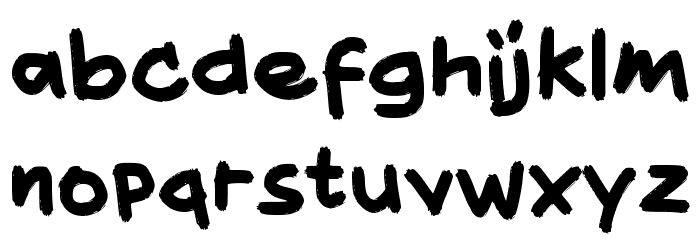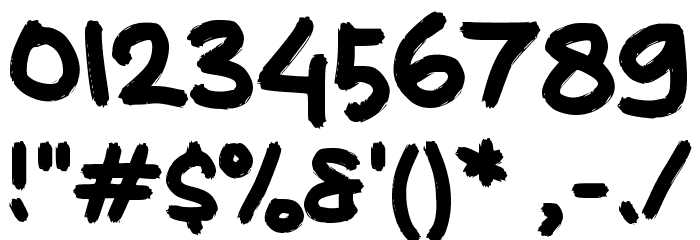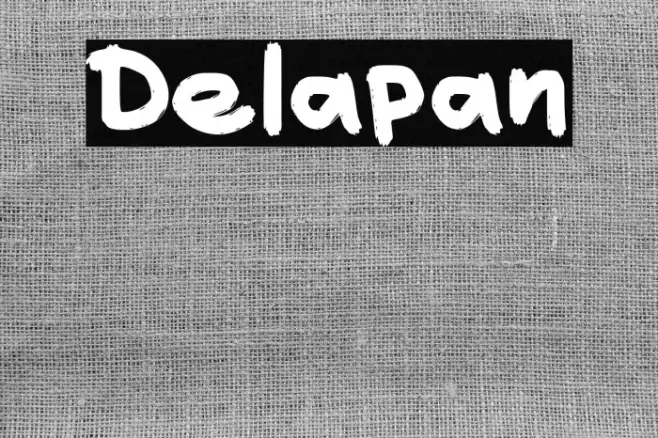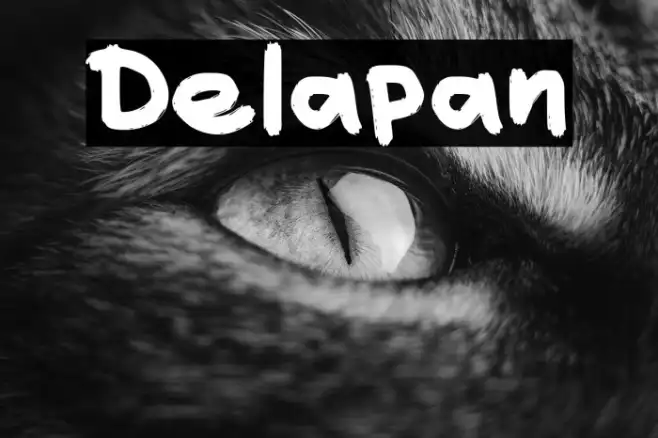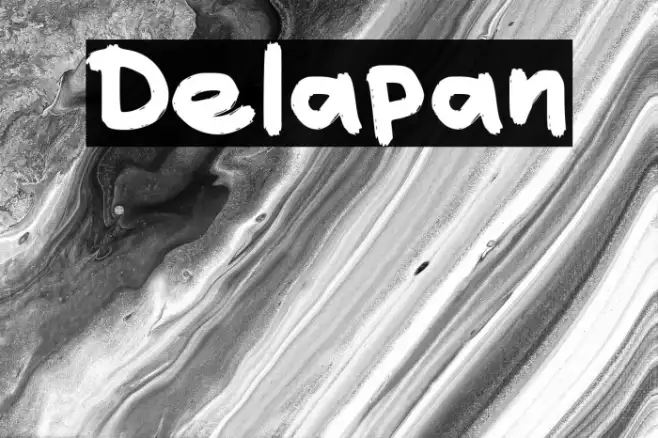
Delapan Font
This font features a bold, hand-drawn style with a playful and energetic appearance. The letters are slightly irregular, giving it a casual and informal feel. The strokes are thick and consistent, creating a strong visual impact. The uppercase and lowercase letters maintain a cohesive look, while the numbers and special characters complement the overall design. This font is ideal for projects that require a personal touch or a sense of fun and creativity.
A bold, hand-drawn font with a playful and energetic style.
- Proposed Projects: Perfect for children's books, comic strips, playful branding, and creative posters.